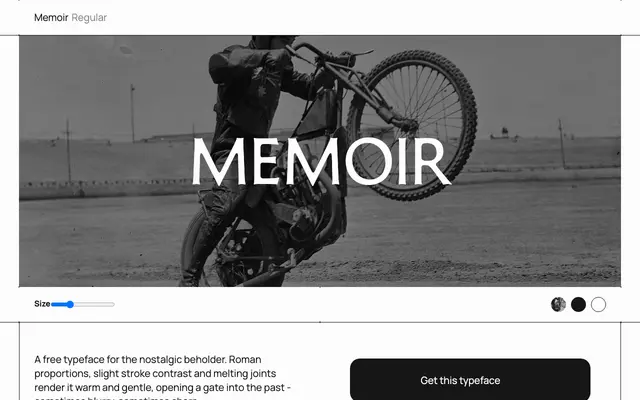
A single-weight serif available as a free download from the Free Faces gallery.
Memoir is a free serif typeface offered in a single Regular weight. The minimal page information suggests a straightforward, unadorned design suited to body text or editorial use. No italic or condensed variants are available.
The single Regular weight and the name 'Memoir' suggest a classical serif design; without further detail, the clean, book-oriented character points toward a transitional serif classification.